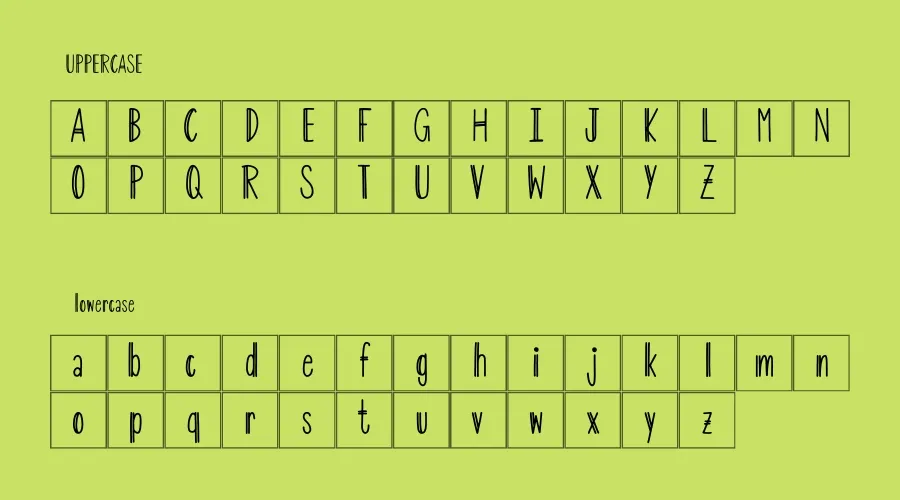
About Lemonade Font
The Lemonade Font is a famous typeface all around the world. It was developed by AquariiD with a unique and ultra-stylish texture appearance. This outstanding typeface is under the category of the Fancy texture family. You may get it free from here for your both operating systems Windows and Mac without any security issues.
This font has amazing pairing quality and can be paired with sketchy font and make modern projects. This font has both file formats OTF and TTF also it has an online generator tool, where you can change all your simple types of textures into contemporary and trendy shapes.
It contains different types of styles and weights such as bold, italics, semibold, and regular. You may utilize this font for both CSS and adobe photoshop. It is the perfect choice for all your fun programs and coding. You should download it and utilize this font for your procedures.